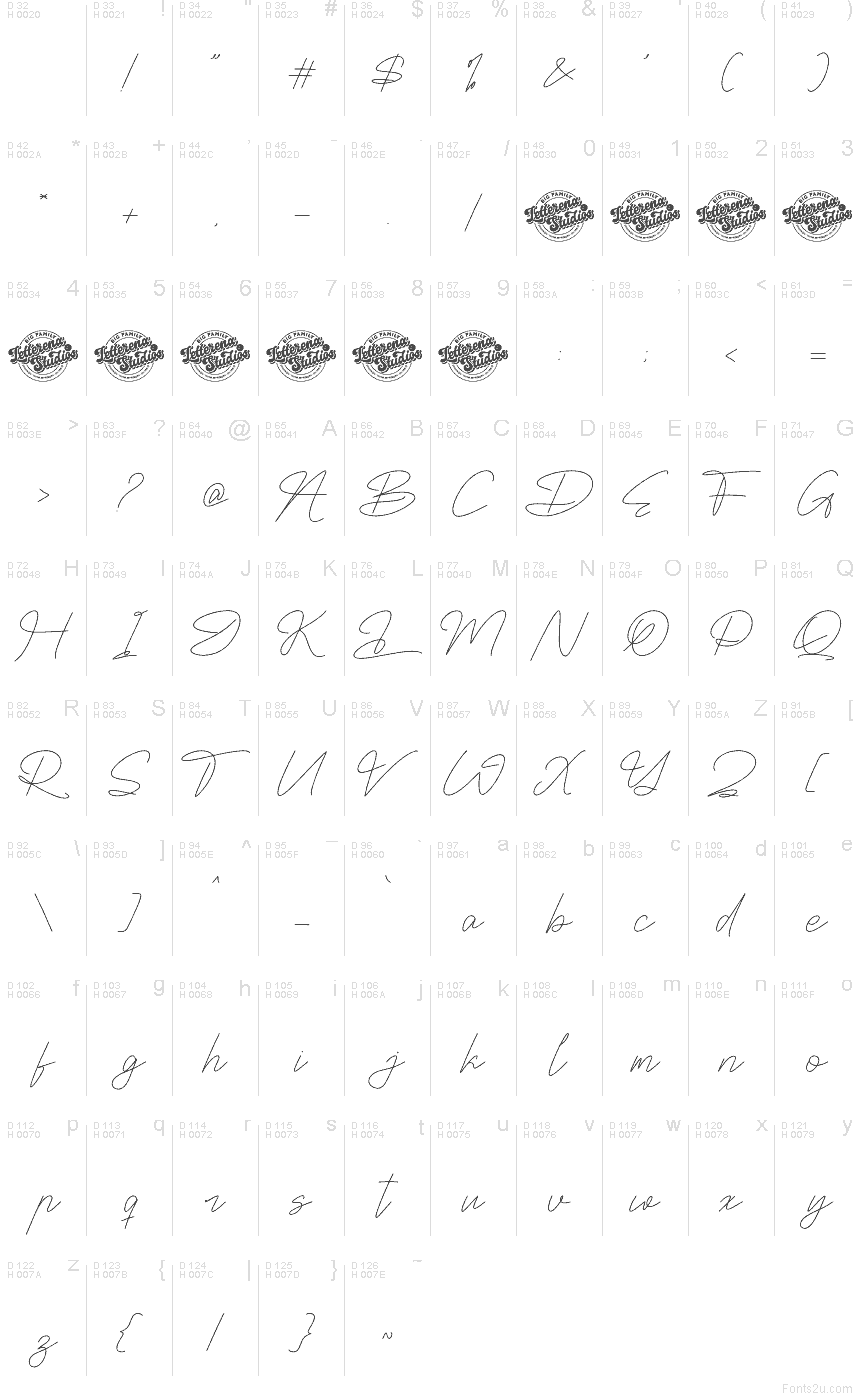
Sifnatur Risthofa DEMO VERSION
Sifnatur Risthofa font by Letterena Studios is a free handwritten typeface with the easy grace of a quick, confident signature. Its ultra-fine strokes, loose loops, and slightly tilted rhythm feel like ink gliding across smooth paper, giving any line a personal, human touch without looking messy or childish. The spacing feels airy, so even longer words keep a light, breezy elegance.
Using Sifnatur Risthofa font, you can add a refined “hand-signed” feel to logos, personal branding, boutique packaging, social media posts, wedding stationery, and digital signatures. This free font shines when used large enough to show off its delicate lines; pair it with a clean sans-serif for body text to keep your layouts polished and readable.